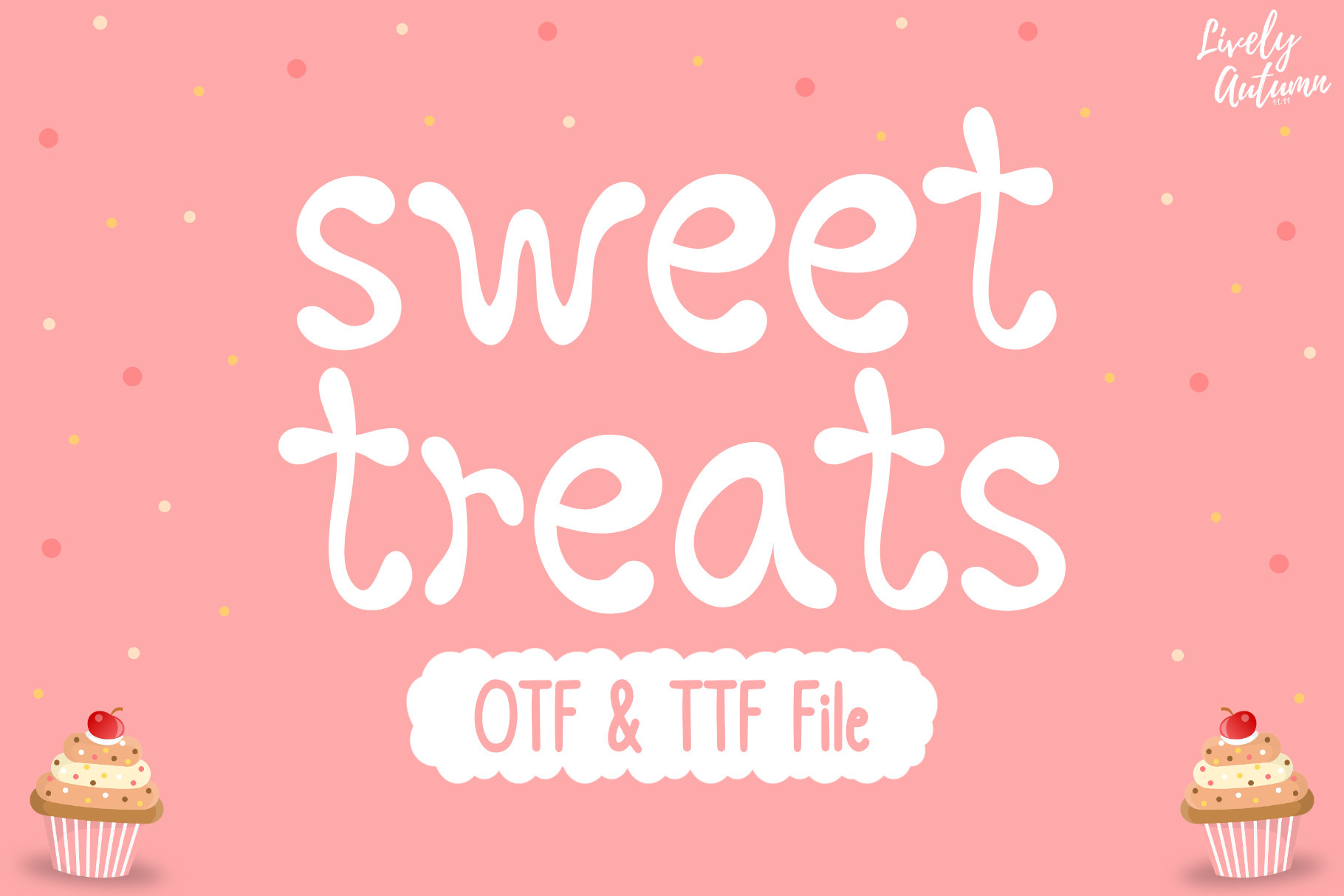
Sweet Treats | Handwriting font
Sweet Treats Font is a hand-drawn sans serif typeface designed with a soft, rounded style. Perfect for your personal projects, and various projects. From invitations to posters, social media graphics, journals, and much more.